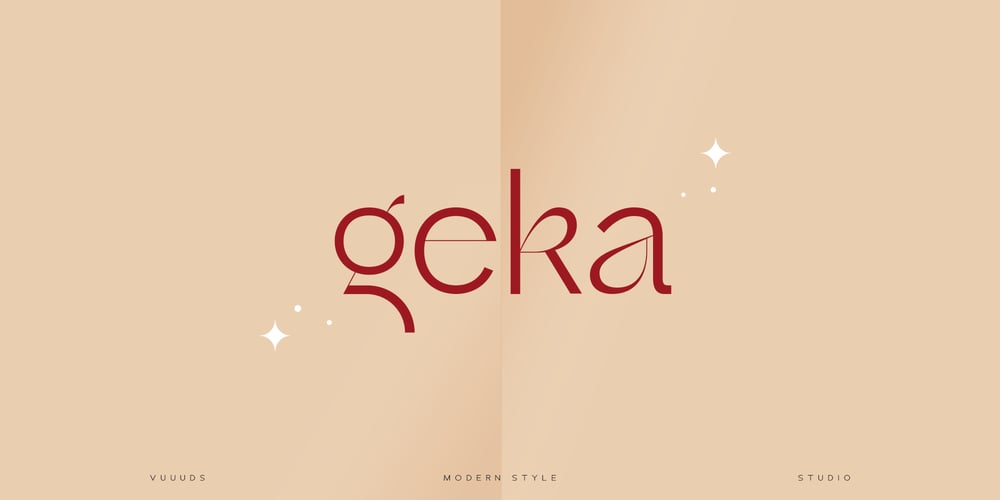
Geka Font Family was designed by Agung Syaifudin and published by vuuuds. Geka contains 1 styles and family package options. Introducing Geka Font!Geka is modern sans serif experimental font, every single letters have been uniquely crafted.This font including beautiful alternate glyph. You can access the alternate glyph via Font Book (Mac user) or Windows Character Map (Windows user), I’ve been put the link tutorial inside the zip file.Foreign languages support: ÀÁÂÃÄÅÆÇÈÉÊËÌÍÎÏÐÑÒÓÔÕÖØÙÚÛÜÝàáâãäåæçèéêëìíîïðñòóôõöøùúûüýÿ߀£¥ŒŠŸ¢œšž©®Thanks for looking.